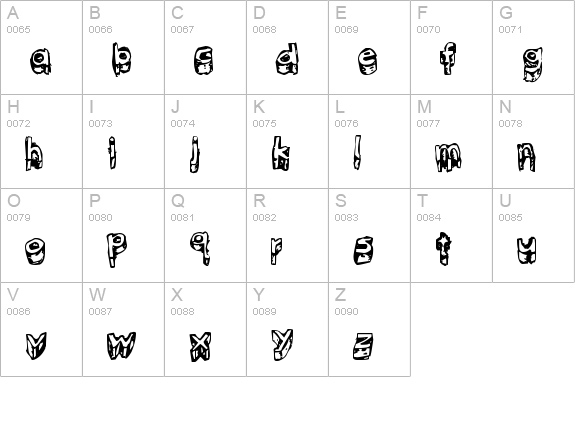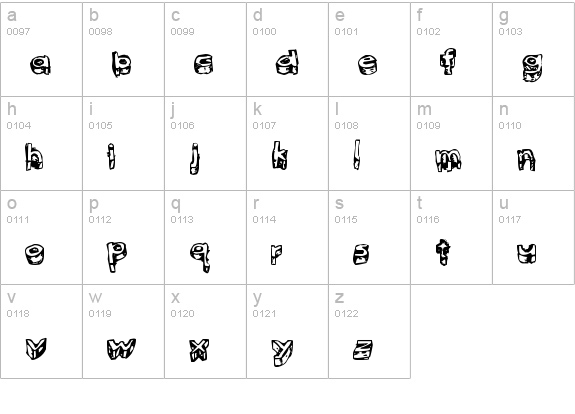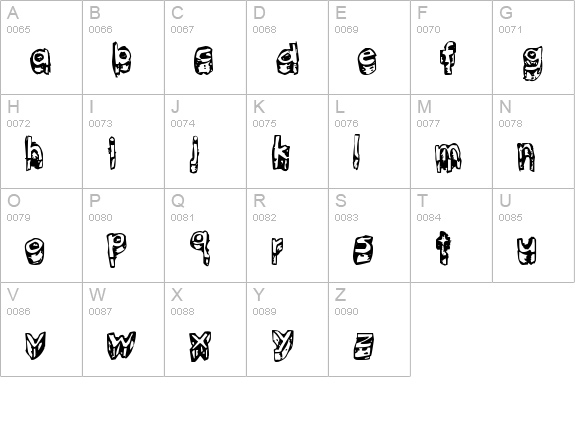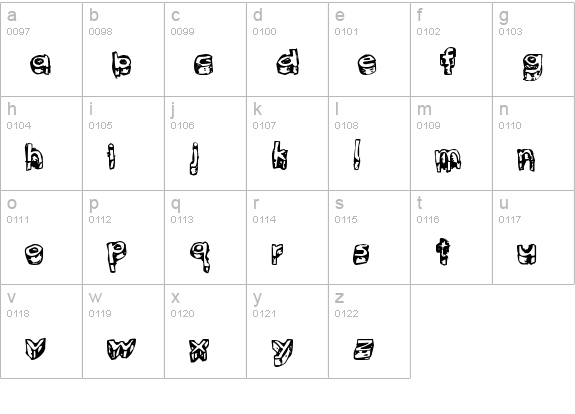
kitten meat Font Details
Introducing Kitten Meat Font, a playful and whimsical typeface that is sure to add a touch of charm to your design projects. This unique font features a quirky and fun style that is perfect for adding a hint of personality to any creative endeavor. With its hand-drawn appearance and friendly vibe, Kitten Meat Font is ideal for a variety of uses, from branding and packaging to social media graphics and more. Best of all, Kitten Meat Font is available for free download at FontsMarket.com, making it easily accessible for all your design needs. Whether you're looking to create eye-catching headlines or add a touch of flair to your projects, this font is sure to help you make a statement. Download Kitten Meat Font today and unleash your creativity with this charming and versatile typeface.